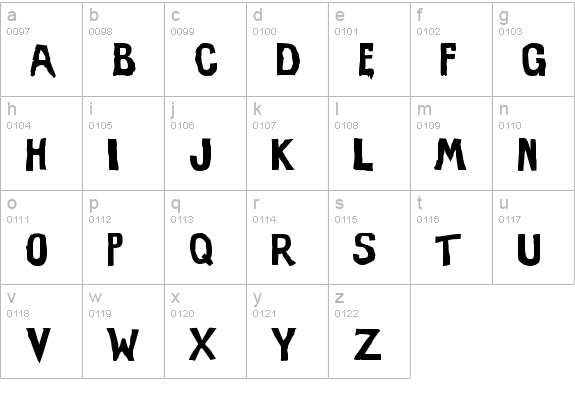
Evil Of Frankenstein Font Details
The Evil Of Frankenstein font is a hauntingly beautiful typeface that exudes a sense of mystery and darkness. With its sharp edges and gothic design, this font is perfect for creating spooky and eerie designs that will captivate your audience. Whether you're working on a Halloween project or simply want to add a touch of the macabre to your work, the Evil Of Frankenstein font is sure to leave a lasting impression. Best of all, this font is available for free download at FontsMarket.com. Simply head to the website and grab your copy of the Evil Of Frankenstein font to start incorporating its sinister charm into your designs today. Don't miss out on this incredible opportunity to add a touch of evil to your projects with this unique and captivating font.